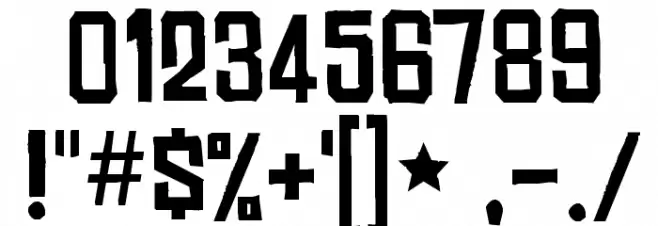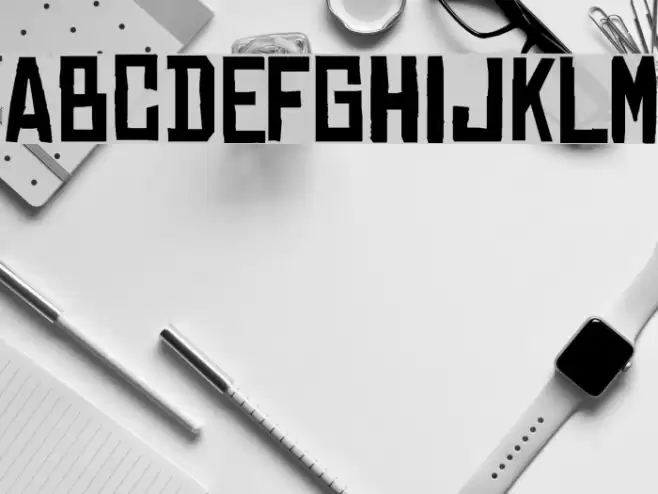
Chinese Rocks Font
Chinese Rocks Description
This font features a bold, rugged style with a distinctly distressed appearance, giving it a raw and edgy look. The characters are blocky and angular, with uneven edges that suggest a hand-crafted or worn aesthetic. The uppercase letters are prominent and assertive, making a strong visual impact. The numbers and special characters maintain the same boldness and distressed texture, ensuring consistency across all elements. This font is ideal for projects that require a gritty, urban feel or a vintage, industrial vibe.
| Overall Style | Vintage, Industrial |
| Proposed Projects | Ideal for posters, album covers, branding for edgy or industrial-themed products, and any design needing a bold, gritty aesthetic. |